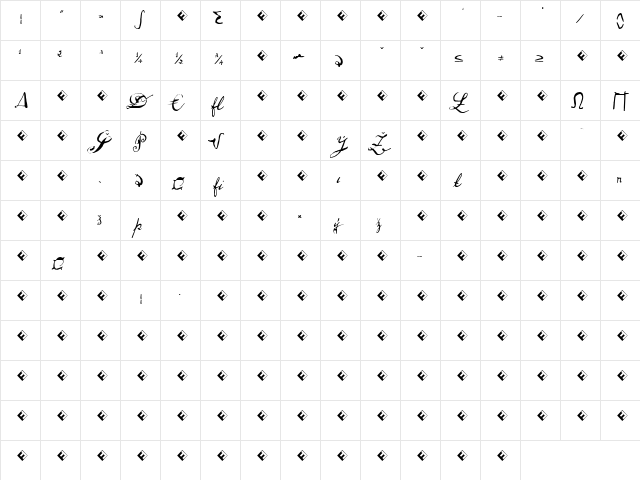
Pepe-SwashExpert Regular Font Preview
Pepe-SwashExpert Regular
Pepe-SwashExpert Regular Font Details
Design Context for Pepe-SwashExpert Typeface
Pepe-SwashExpert brings a calligraphic fluidity to the page — its connecting strokes and expressive curves give it an unmistakably human quality.
Font Pairing: Combine Pepe-SwashExpert with a simple geometric sans for maximum contrast — the tension between flowing curves and clean structure is a classic typographic pairing.
Pro Tip: Pair Pepe-SwashExpert with a clean sans-serif for supporting text. The contrast between fluid script and geometric structure creates an elegant typographic hierarchy.